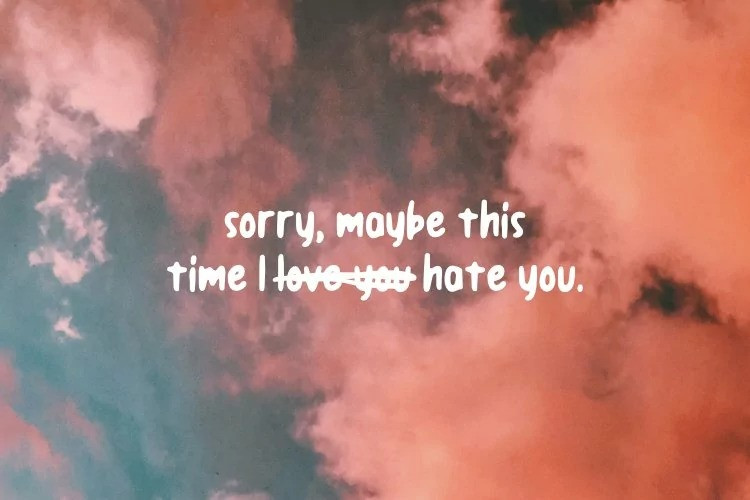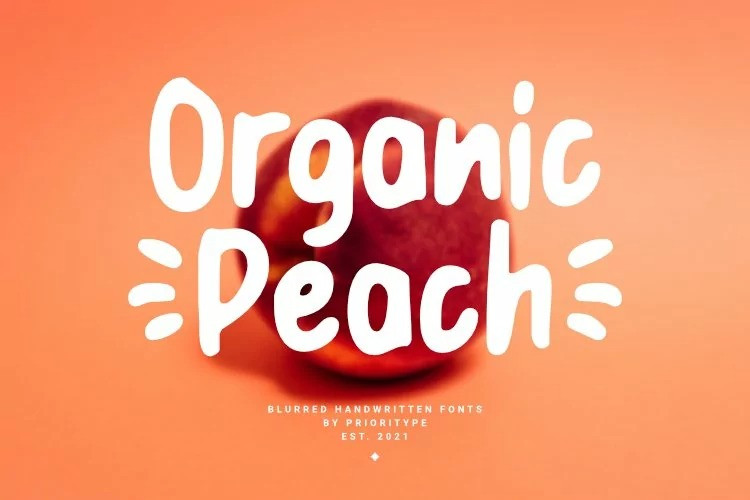
Organic Peach Display Font
Is a natural handwritten font with a blur effect making this font look smooth and simple. Suitable for use in design projects such as quotes, social media posts, branding, merchandise, posters, cover and much more which you can make with this great item for any design.